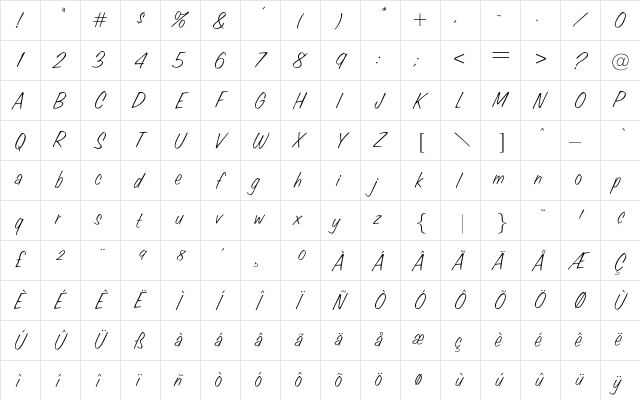
OPTICandid Ballpoint
Style: Ballpoint
Design Context for OPTICandid
OPTICandid is a composed and adaptable typeface that performs quietly and consistently across a wide range of design contexts.